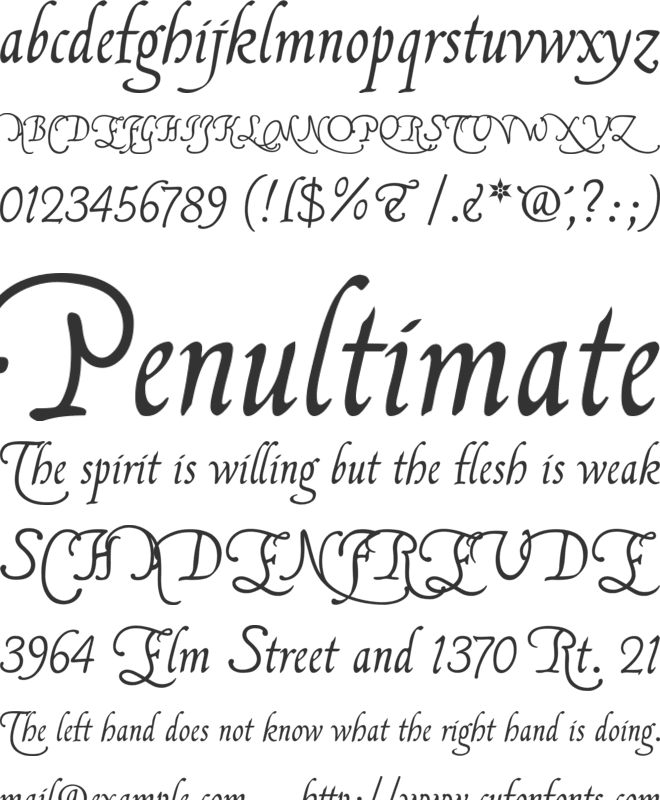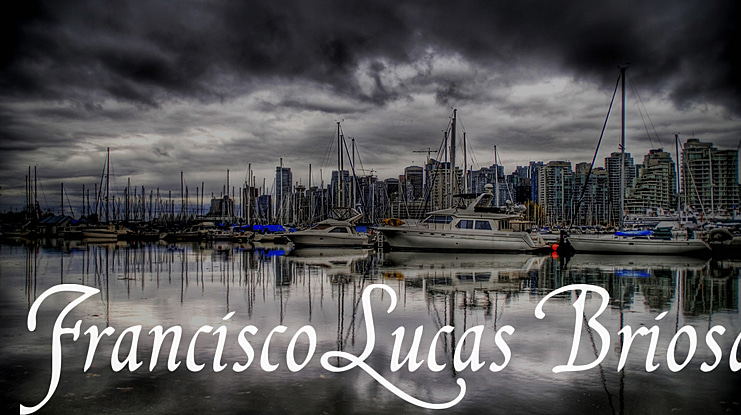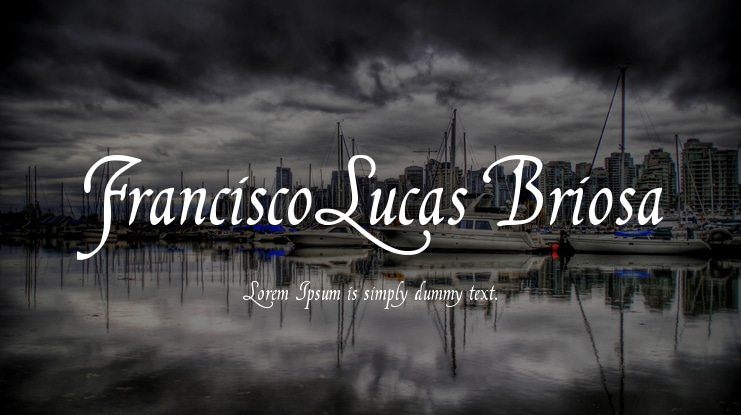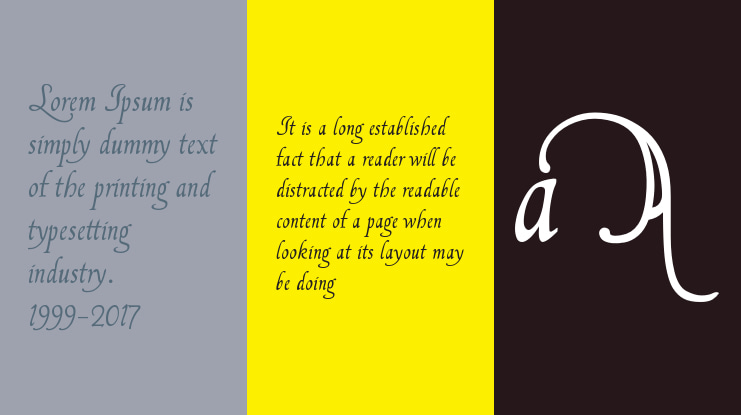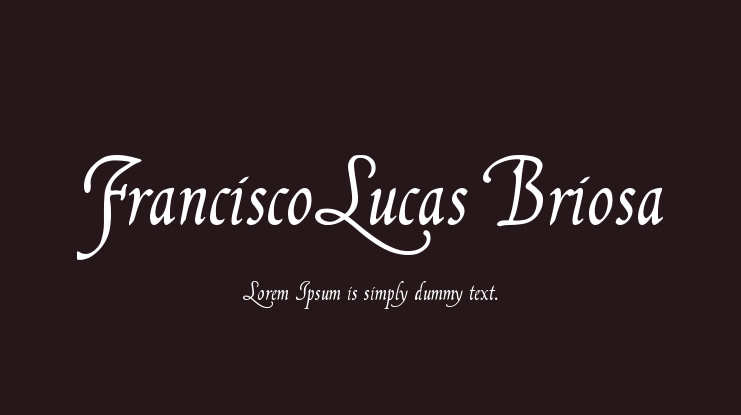
FranciscoLucas Llana was written at Madrid in 1570, by a man called Francisco Lucas. Employing the Spanish term for a cursive hand, he called it a Bastarda; but technically speaking, it is a humanistic cursive -- the style of writing which is mostly known under the name of Chancery. Reworking Mr Lucas' glyphs has been my first attempt to produce something like regularity; and of course, no Ks and Ws being needed in Spain, I had to dream them up myself.
FranciscoLucas Briosa is an alternate and more swashed version of FranciscoLucas Llana, designed after an alphabet of capitals created by the same writing master, and in the same year 1570.
Update 2010 has not only enlarged the dashes and redesigned all of the composite glyphs, in both fonts (and corrected the dcaron, Lcaron/lcaron, and tcaron, of course), it has also given FranciscoLucas Llana a new E, W, g, and y. As a consequence, the alternate glyphs, which were formerly the same in both fonts, are now different.
In FranciscoLucas Llana, you'll find the the following alternate glyphs:
the former g instead of the left bracket
a plain z instead of the right bracket
the former E instead of the left curly bracket
a slender K instead of the right curly bracket
a slender Z on the bar and broken bar sign.
In FranciscoLucas Briosa, you'll find the the following alternate glyphs:
a rather condensed g instead of the left bracket
an alternate y instead of the right bracket
an alternate E instead of the left curly bracket
a very swashed R instead of the right curly bracket
a final e instead of the bar and broken bar sign
Both fonts have a double long s on the long s sign, as well as a st and a ct ligature on the fi and fl keys (in case the fi and fl signs aren't reachable on your computer, you might try the masculine and feminine ordinal indicators, or the 'less-than or equal to', and the 'greater than or equal to' signs). There is no number sign in these fonts. In its place, you'll find a long s.
Update 2007 had reduced the files' size, by redesigning the composite glyphs, and corrected some flaws -- above all, an error concerning the lcedilla sign.